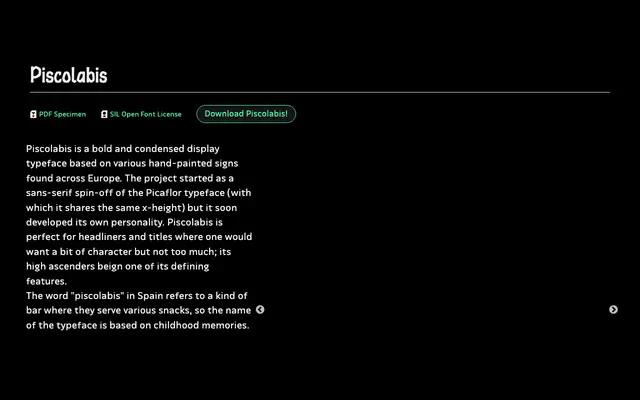
Piscolabis
A bold, condensed display typeface drawn from hand-painted European signage, notable for its high ascenders and restrained character.
Developed as a sans-serif offshoot of Ariel Martín Pérez's Picaflor, Piscolabis shares its parent's x-height but quickly grew its own identity. Its forms are rooted in hand-painted shop signs found across Europe, giving headlines a vernacular warmth without tipping into novelty. The high ascenders are the most distinctive structural feature, lending titles a confident vertical stretch suited to editorial and poster work.
A bold condensed display face derived from hand-painted European signage, making it squarely a display typeface with vernacular, sign-painting roots rather than a conventional grotesque or geometric sans.